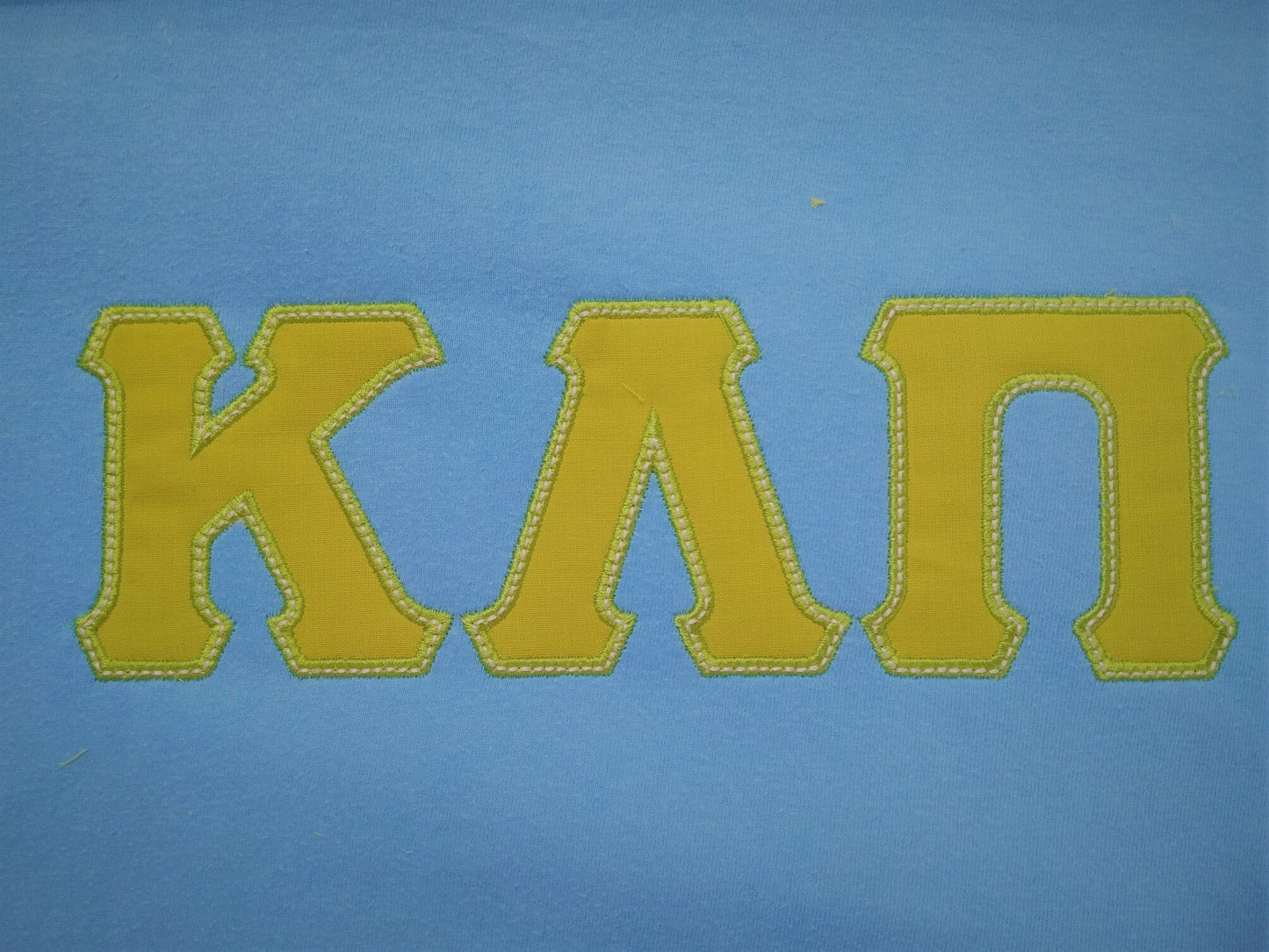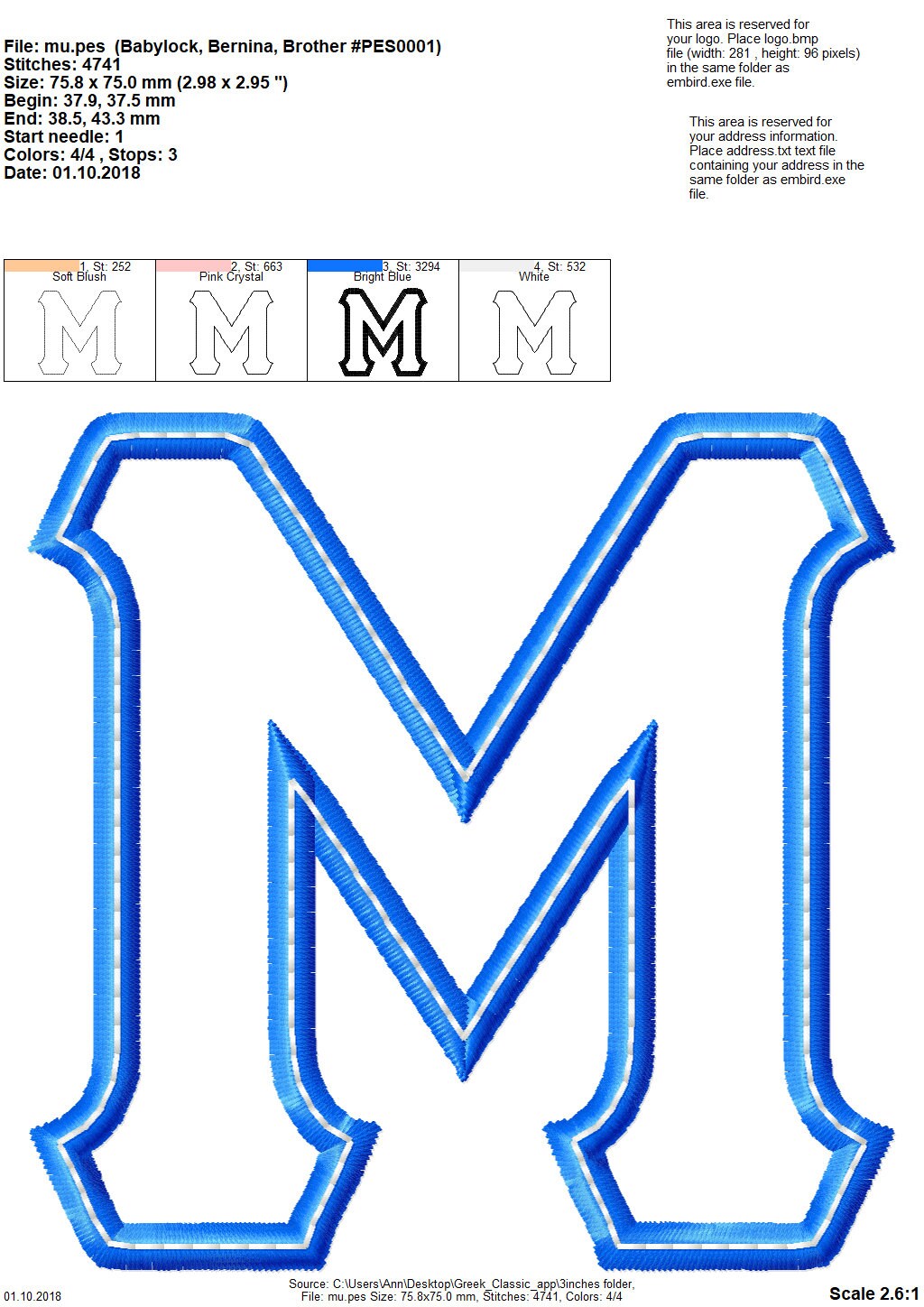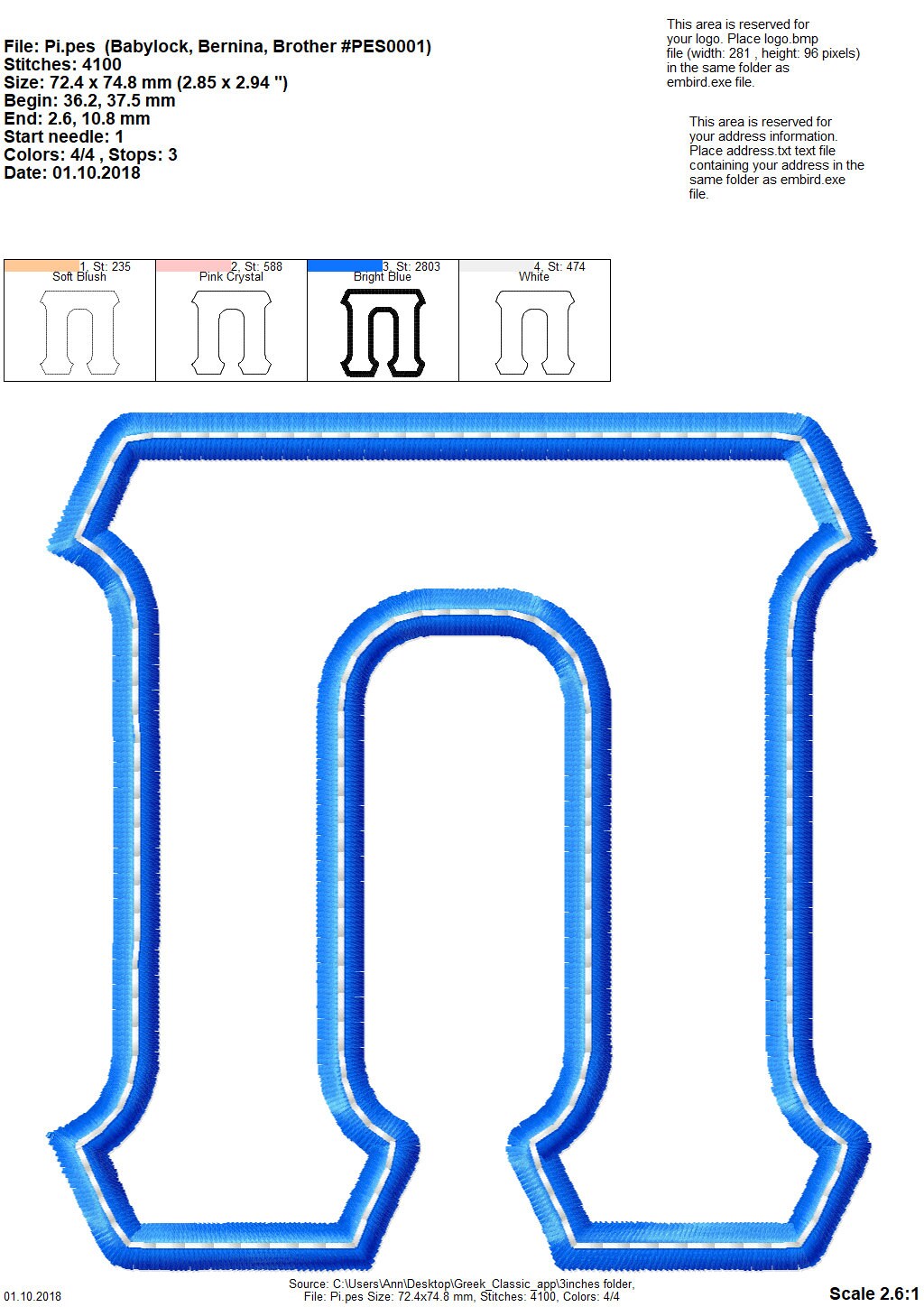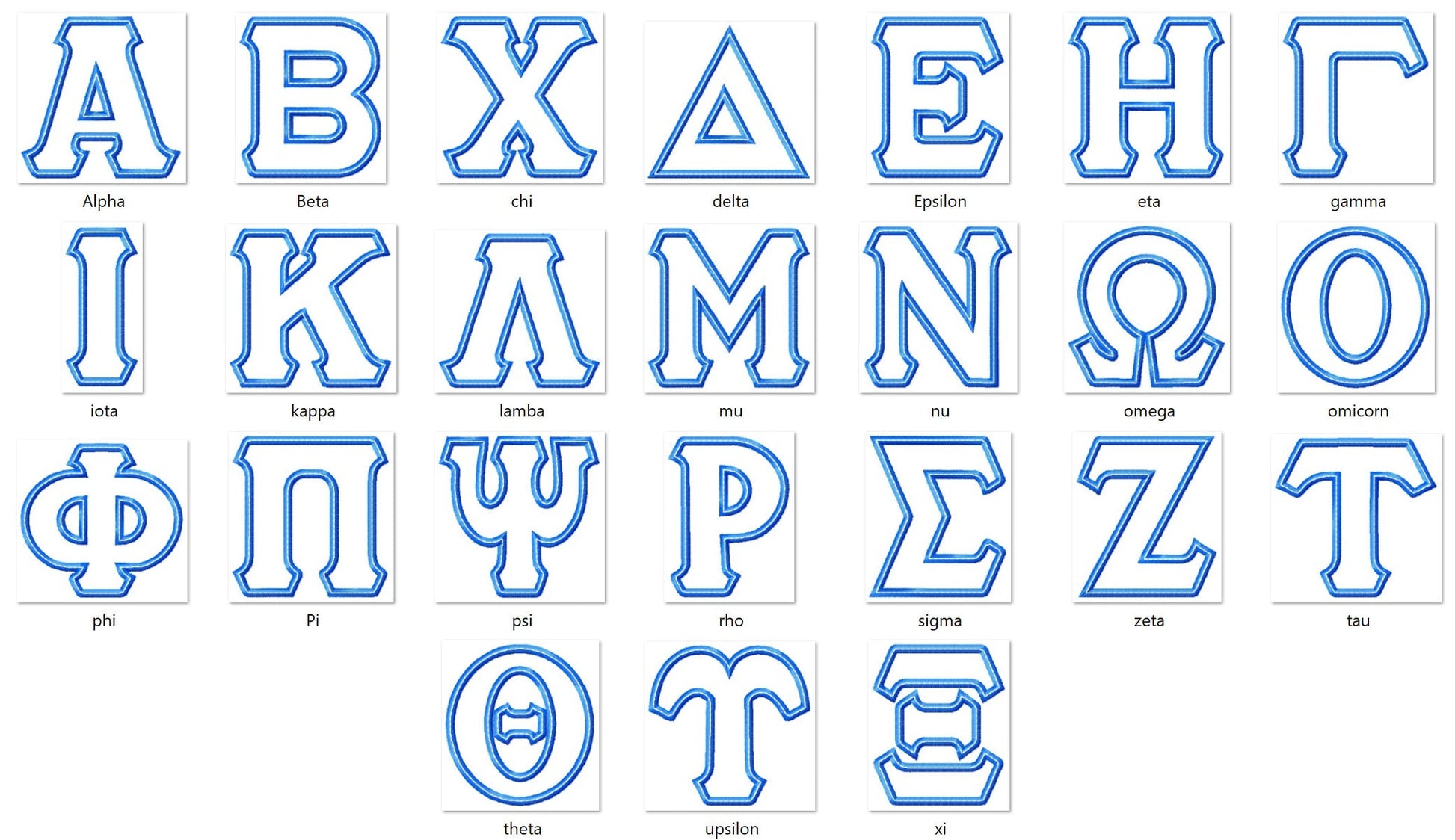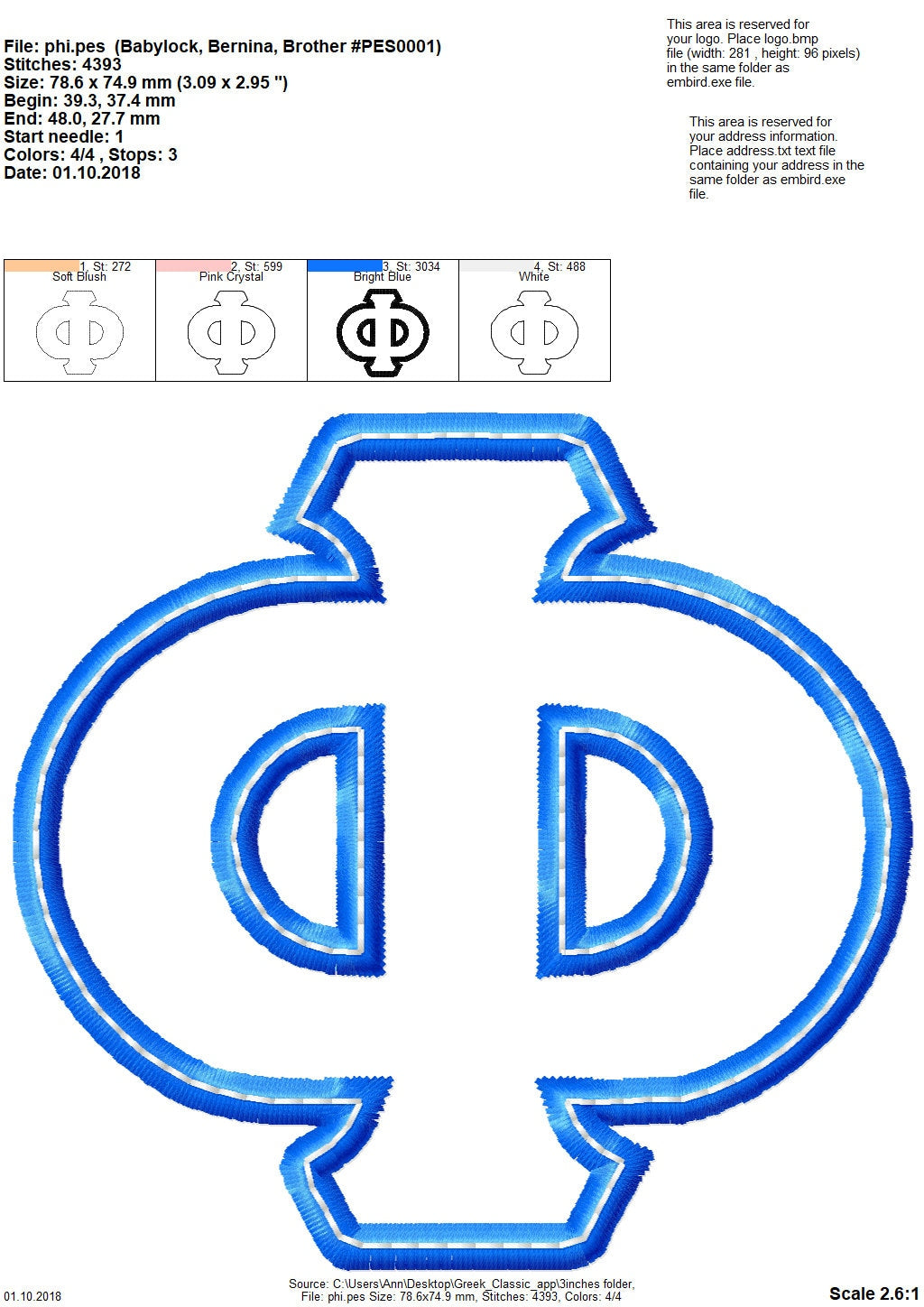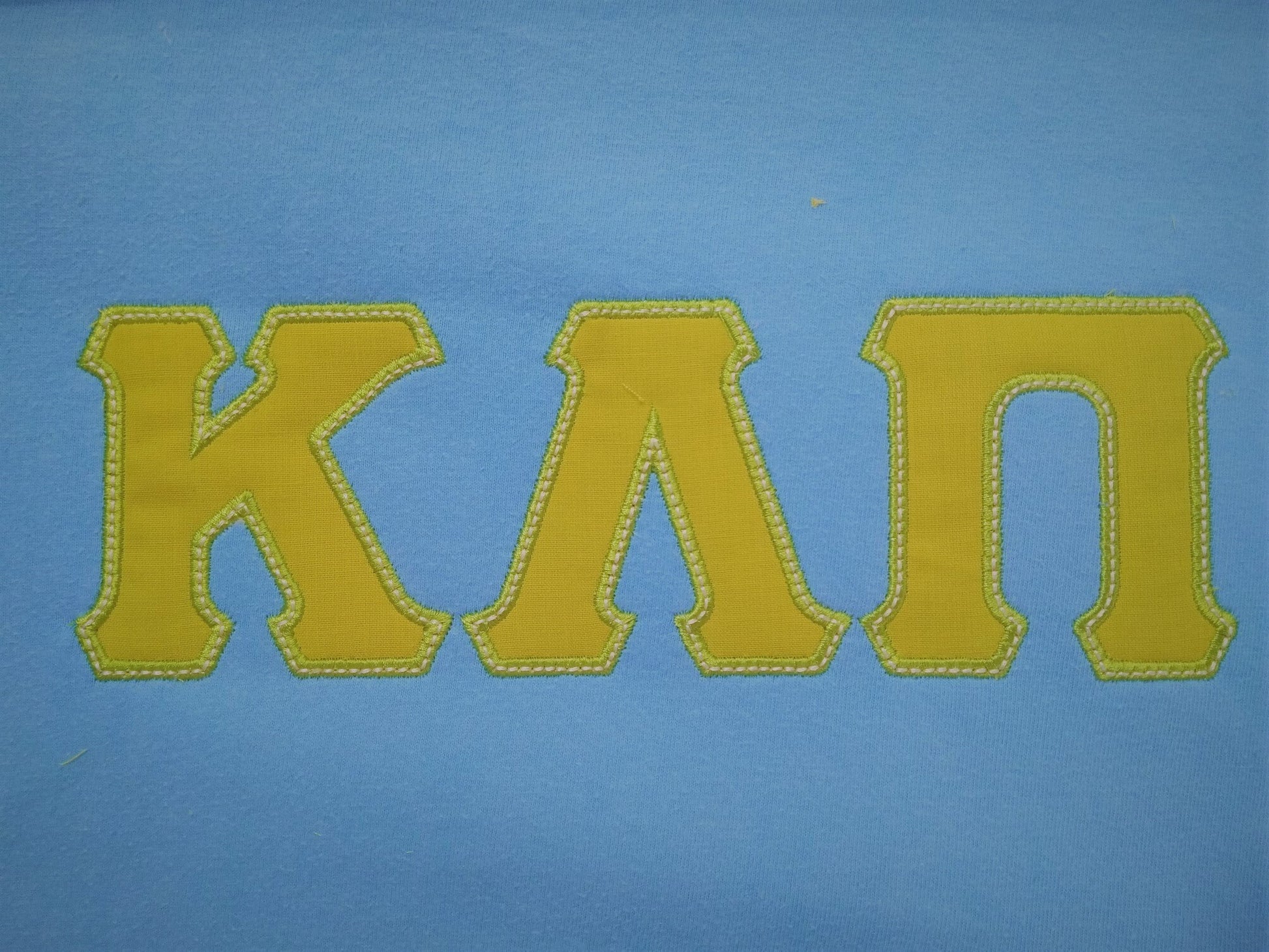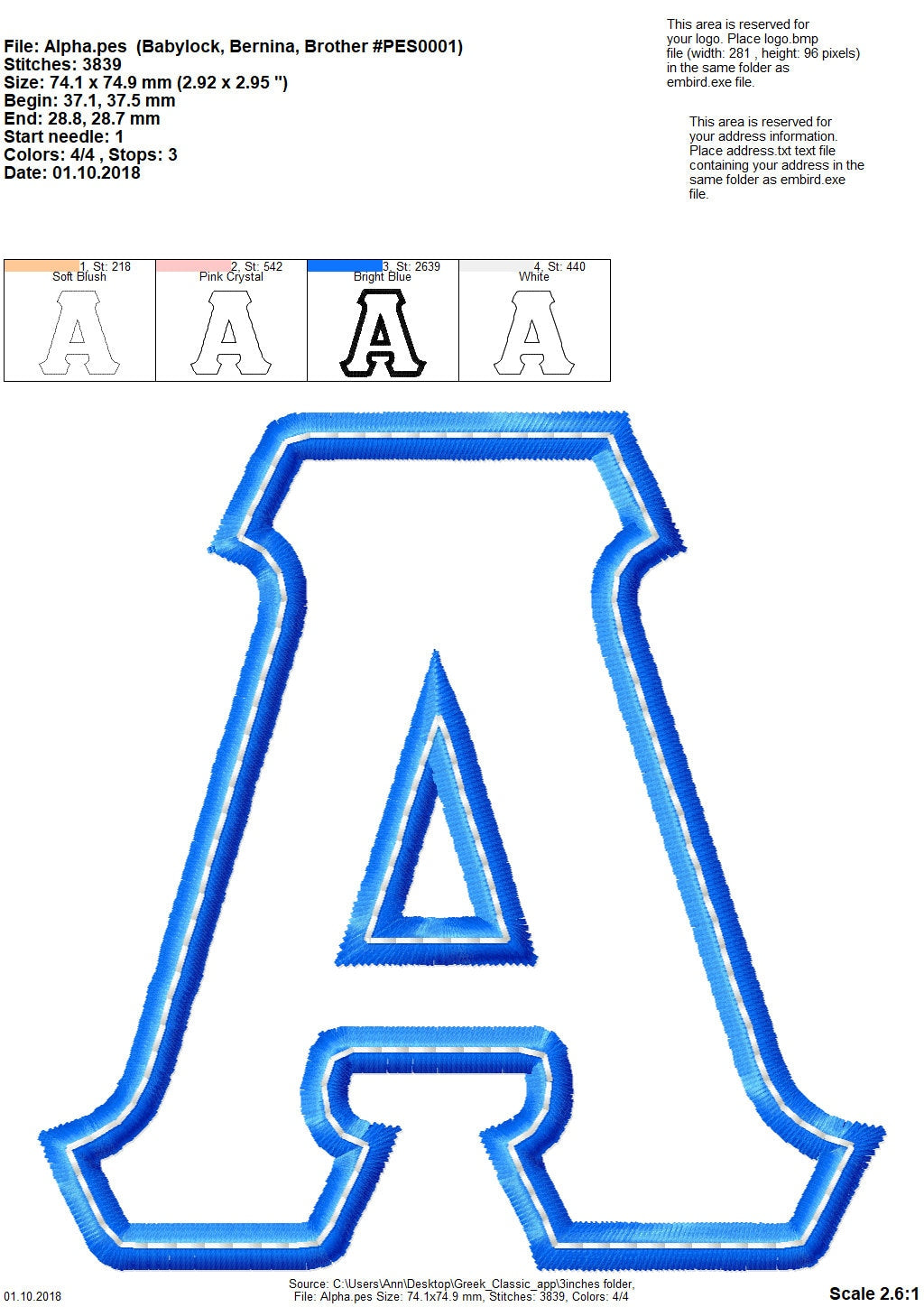
this stitched out great, love the product.
I loved the way it stitched out
Literally awesome! So easy to use for someone that had never used embrilliance or an embroidery machine before
Stitched out great! Never had a problem with their designs.
These greek alphabet appliques letters were perfect for my project and I loved the nice touch of the outline . Cute
Stitched out great the first time I tried it! I’m always happy with artipli’s fonts.
Love this design and it seems to sew beautifully.
Great files, easy to use.
Great item. Turned out great!
Perfect font for a custom order sash for a friends daughter.
I have only stitched the 4” letters and they are far from being 4”. But most importantly, there are unnecessary stitches at the corners of some of the letters that ruin the letters (like the Delta and Sigma). Please know that the final stitch of each letter creates a needled look so if you don’t want it, just don’t stitch it.
I love the letters for embroidery.
Exactly what I had been looking for!
Stitched out beautifully. Made a bag for my niece and it was so easy to stitch out.
Great designs and easy to stitch
Loved the fonts, thank you.
Perfect works well when used
Beautiful stitchout would purchase from again
Stitches out perfect!! Works perfect for all Greek letters
It was perfect on the sweatshirt!
Thus shop never fails with their designs. Shirts came out perfect!
Great font! Stitched out really well!
These are great, stitch out great and love them
Perfect appliqué lettering. Stitched out perfect. Put on a sweatshirt!!